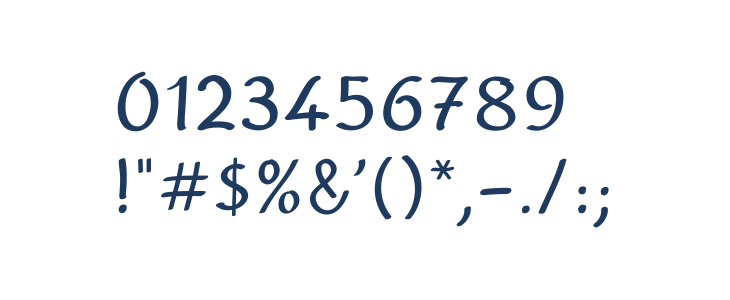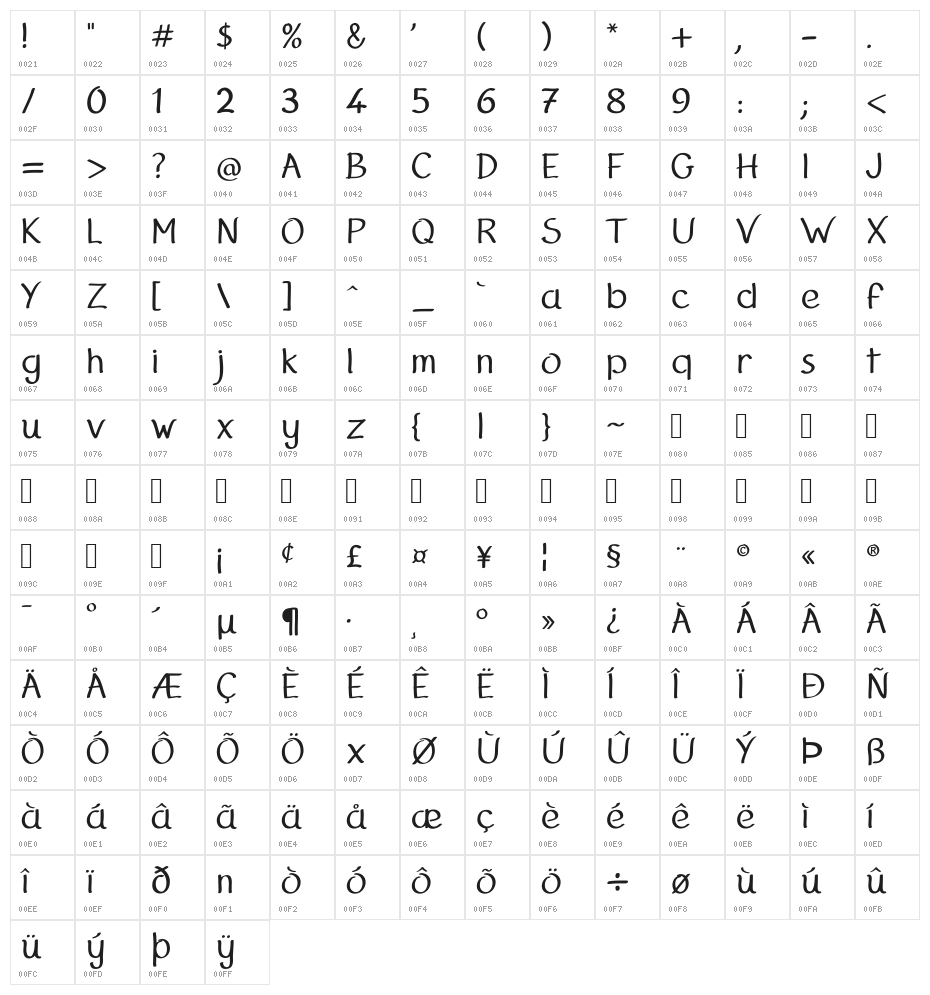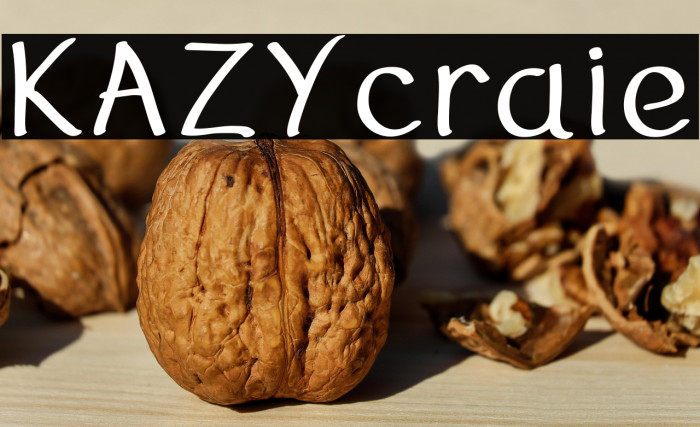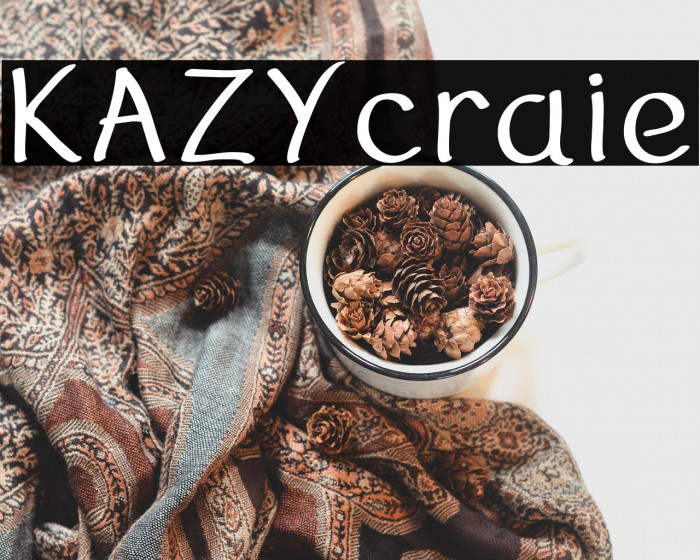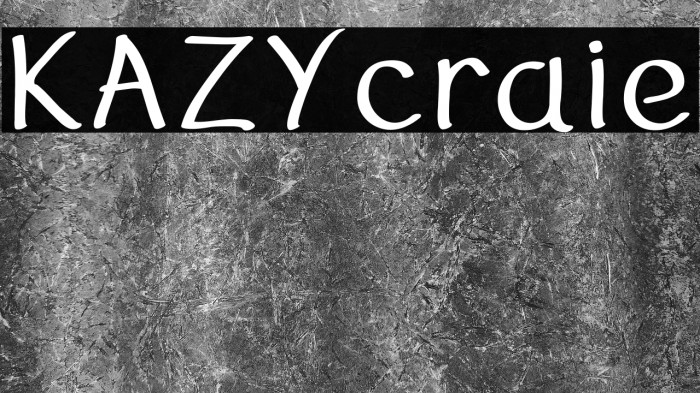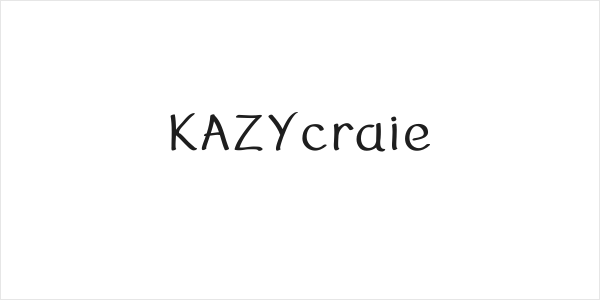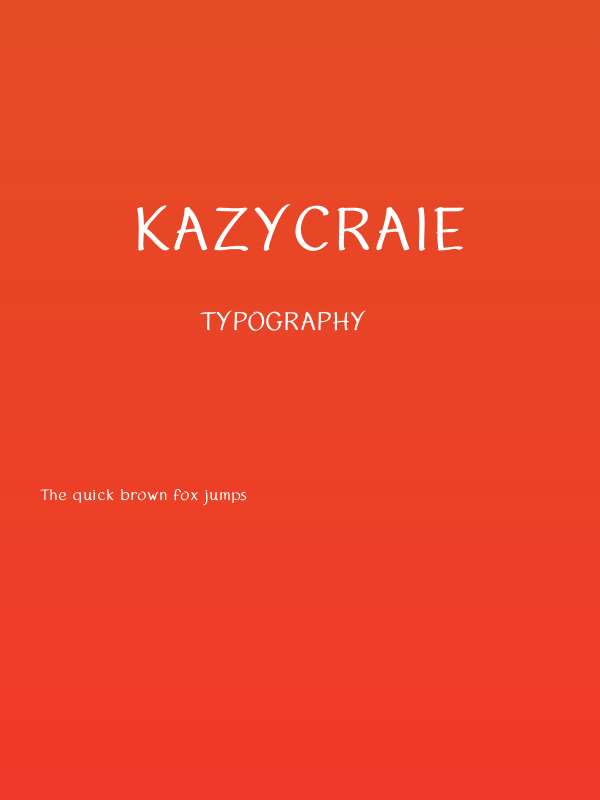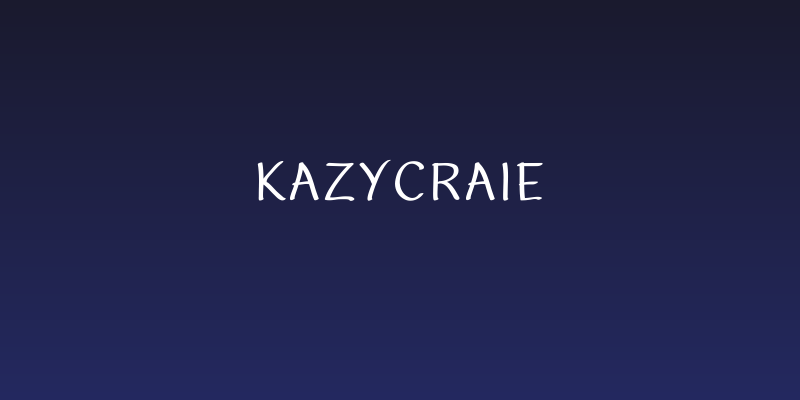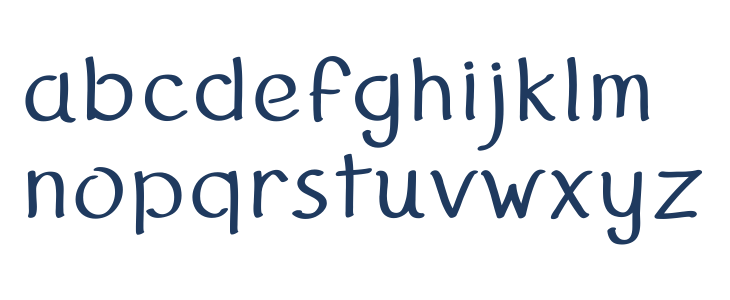
KAZYcraie Font
KAZYcraie Description
This font features a playful and informal handwritten style, characterized by its slightly irregular strokes and casual appearance. The letters have a natural flow, with rounded edges and a consistent stroke width that gives it a friendly and approachable feel. The uppercase and lowercase letters maintain a cohesive look, while the numerals and special characters complement the overall design. This font is versatile, suitable for projects that require a personal touch or a relaxed vibe.
| Proposed Projects | Ideal for greeting cards, children's books, personal blogs, and informal branding projects. |